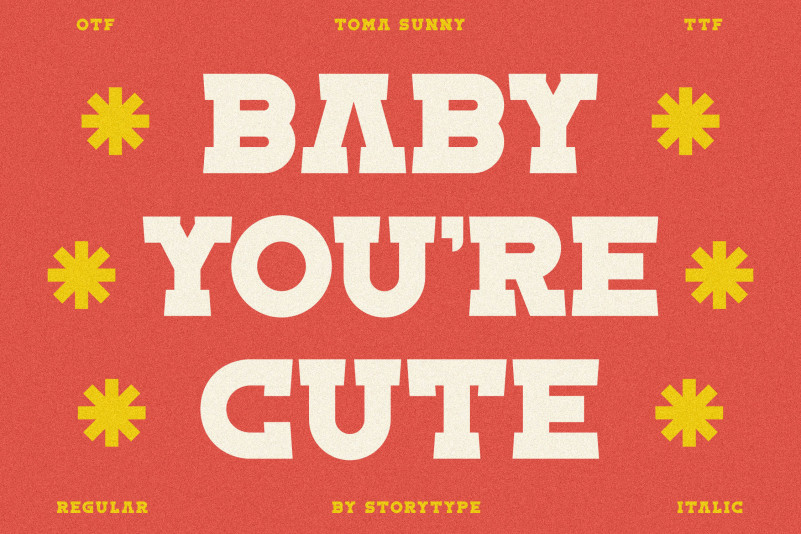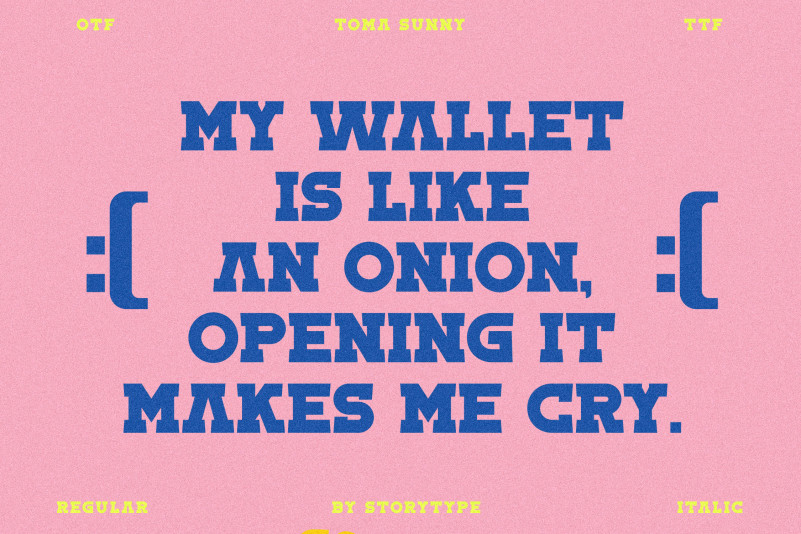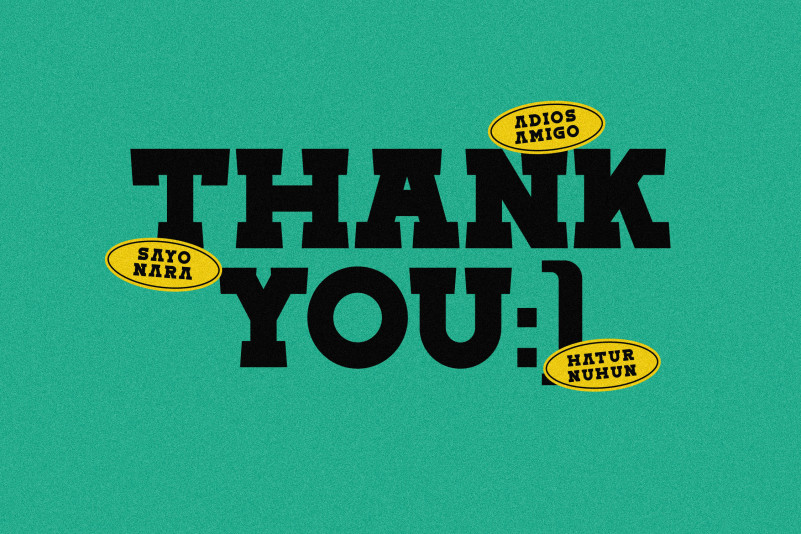
Toma Sunny Font
Toma Sunny Slab Serif Font is a slab serif modern and classic typeface that has own unique style & modern look. This typeface is perfect for an elegant & luxury logo, book or movie title design, fashion brand, magazine, clothes, lettering, quotes, and so much more.